Fonts might seem like a small part of your video editing process, but they have a big impact. The right font can make a scene feel powerful, professional, warm, or even fun. The wrong one? It can distract viewers or send mixed signals. That’s where font psychology comes in.
As a video editor, you probably spend a lot of time thinking about framing, pacing, color correction, and sound design. But typography is just as important, especially for businesses aiming to connect with audiences in a clear and compelling way. Fonts are visual tone-setters. They speak before your voiceover does. They whisper credibility or shout excitement before anyone clicks play.
What is font psychology?
Font psychology is the study of how typeface design affects perception, mood, and decision-making. Just like color theory, font psychology taps into human emotion and cognition. It’s about the way we respond, consciously or not, to the shapes, lines, and styles of letters on screen.
When you choose a font for a video, you’re not just picking something that looks good. You’re picking something that says something. It might suggest trustworthiness, modernity, friendliness, or elegance. The font you use to introduce a corporate annual report should not be the same one you’d use for a fashion reel or startup pitch.
Think of fonts as visual cues. They prepare your audience for the message they’re about to receive.
Types of fonts and their impact
Fonts fall into broad categories. Each category carries its own set of emotional associations. When used effectively, these fonts can enhance the tone and message of your video.
Serif fonts: traditional and trustworthy
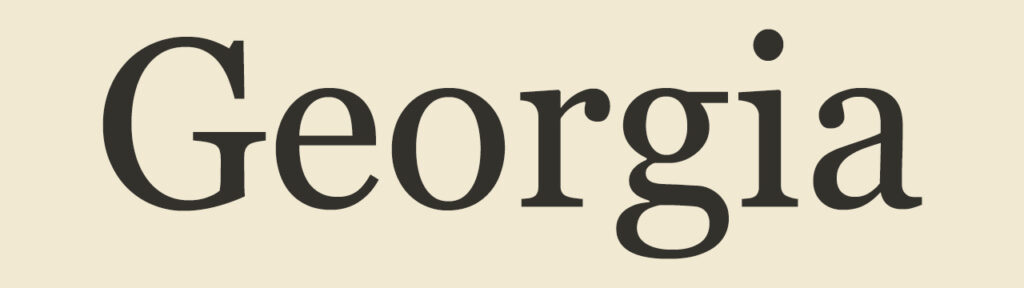
Serif fonts have small lines or strokes at the ends of each letter. These fonts have a long history and are often seen in print. That makes them feel classic, established, and reliable.
Use case: Corporate presentations, legal updates, financial overviews, educational material.
Examples: Times New Roman, Georgia, Garamond, Baskerville.
Serif fonts create a sense of professionalism. They’re serious. So when you want viewers to trust the content or brand, serif fonts are a solid bet.
Sans-serif fonts: clean and contemporary
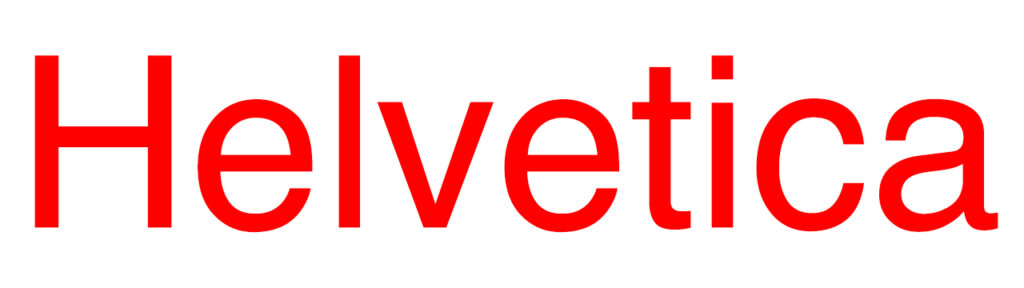
Sans-serif fonts remove the extra lines. They are modern, streamlined, and easy to read on screens.
Use case: Tech demos, explainer videos, internal comms, minimalist branding.
Examples: Helvetica, Arial, Futura, Roboto.
Sans-serif fonts are incredibly versatile. They’re perfect when clarity matters most. If your video walks through product features or presents hard data, these fonts help your message land with impact.
Script fonts: elegant and expressive
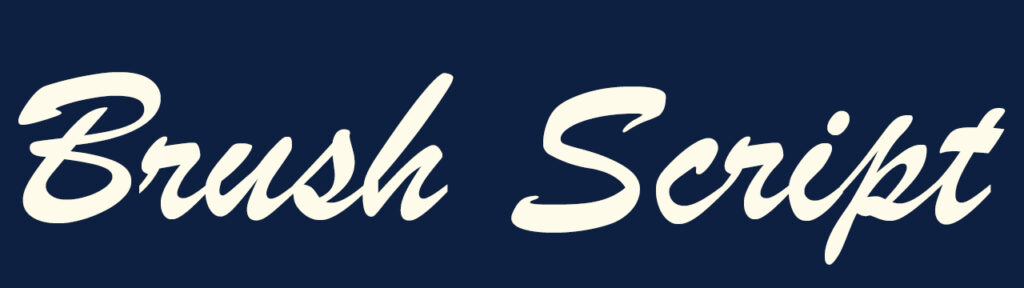
Script fonts mimic cursive handwriting. Some are formal. Others are playful.
Use case: Title cards, lifestyle content, luxury branding, emotional storytelling.
Examples: Pacifico, Brush Script, Great Vibes, Allura.
These fonts aren’t great for body text or captions. But in moderation, they add charm or sophistication. They’re perfect when you want something to feel personal.
Display fonts: bold and attention-grabbing
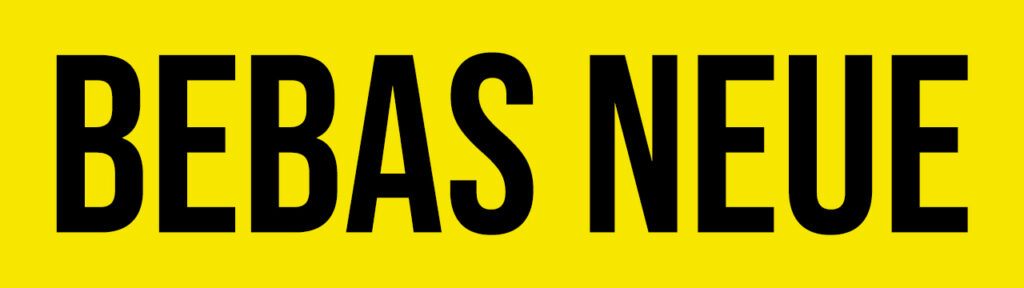
Display or decorative fonts are highly stylized. They’re made to stand out. Because of that, they should be used with caution.
Use case: Intros, transitions, bold branding moments.
Examples: Impact, Lobster, Bebas Neue, Playfair Display.
Display fonts are not for every project. But if you want to surprise or energize your audience, they can do a lot with just a few letters.
Monospaced fonts: technical and neutral
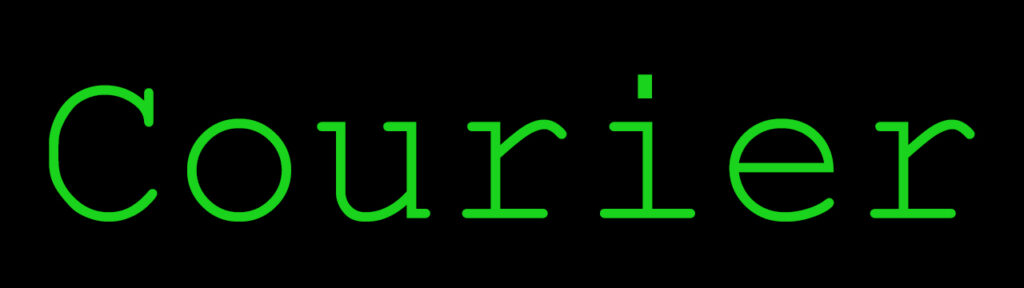
Each letter in a monospaced font takes up the same amount of horizontal space. This gives the font a mechanical, structured feel.
Use case: Coding tutorials, software intros, tech branding.
Examples: Courier, Consolas, Inconsolata.
Monospaced fonts can signal clarity and objectivity. When used carefully, they emphasize precision.
Additional factors in font psychology
Font choice is just the start. Other visual elements affect how your type feels and functions.
Weight and thickness
Bolder fonts feel strong and urgent. Light fonts come across as delicate, refined, or quiet. You can use weight to create contrast or emphasis without switching font families.
Case
All caps feels assertive or even aggressive. Title case (capitalizing the first letter of each word) often feels balanced and clean. Lowercase feels casual and informal.
Spacing
Tight letter spacing can feel cramped or intense. Wide spacing suggests luxury, airiness, or space to breathe. This applies to both character spacing (tracking) and line spacing (leading).
Color
The emotional tone of your font changes with color. A bold sans-serif in black feels serious. The same font in orange might feel energetic. Match color with brand personality and the context of your scene.
Size and scale
Larger fonts dominate the screen. They demand attention. Smaller fonts feel more subtle. Scaling your fonts creates hierarchy and helps guide the viewer’s eye.
How you can apply font psychology to video editing
As a professional editor, you already know the importance of visual coherence. Font psychology fits right into your toolkit. Here’s how you can put it to work.
Match the font to the message
Every project has a tone. It might be confident, serious, fun, or heartfelt. Your font should mirror that tone. Are you launching a new product? Use something clean and modern. Summarizing your team’s quarterly goals? Stick to a font that feels formal and clear.
Reinforce brand identity
Most businesses already have brand guidelines that define primary and secondary fonts. Use them when possible. If you need to break from the brand standard, stay close to the visual spirit of those fonts.
Combine fonts with purpose
Try pairing two fonts: one for headlines and one for body text. For example, a serif header paired with a sans-serif body adds visual contrast while keeping things legible.
Just make sure the fonts don’t clash. Avoid pairing fonts that are too similar or too radically different.
Use Animation Thoughtfully
The way your text moves also affects perception. A script font that fades in slowly can feel elegant. A bold sans-serif that zips across the screen feels dynamic. Keep your motion consistent with the tone of the type.
How to choose a font/fonts for your video
Choosing a font doesn’t have to be overwhelming. Try working through this short checklist:
- Define your tone. What feeling should viewers walk away with?
- Review brand guidelines. Start with what’s already approved.
- Consider your audience. Different fonts resonate with different viewers. A younger audience might appreciate something fresh or playful.
- Test for readability. Will this font hold up on small screens?
- Create a visual hierarchy. Use size, weight, and contrast to guide the viewer’s eye.
- Limit your font palette. One to two fonts per video is usually enough.
When in doubt, keep it simple. A clear message delivered in a well-chosen font will always outperform something overly complicated.
Ensuring readability and accessibility
Great design should be inclusive. Your fonts should work for as many viewers as possible.
Prioritize Legibility
Choose fonts with distinct, easy-to-recognize letterforms. Viewers should be able to absorb information at a glance, especially on fast-moving or information-dense scenes. Avoid fonts that are overly condensed or too ornate, since they tend to blur at smaller sizes or low resolutions. High x-heights and open counters improve readability across all devices.
Use High Contrast
Good contrast helps your text stand out and keeps it readable in any setting. Place light fonts on dark backgrounds or dark fonts on light backgrounds for maximum clarity. Avoid color combinations that can be jarring or difficult to distinguish, especially for viewers with visual impairments. Always test your font colors under different lighting conditions and on various screens.
Optimize for Screen Sizes
Videos are viewed on everything from phones to projectors. A font that looks crisp and legible on a desktop monitor might become unreadable on a smaller screen. Always test your typography across devices to spot any scaling or spacing issues. Design with mobile-first in mind when targeting wider audiences.
Add Captions Thoughtfully
Captions are a key accessibility tool, so their readability matters. Use a clean, sans-serif font that stays legible at smaller sizes and doesn’t compete with the visuals. Keep the text large enough to be comfortably read but small enough to avoid obstructing important elements in the frame. Stick to a consistent style and placement so viewers always know where to look.
Stay Consistent
Consistency builds trust and helps the viewer follow your message without distractions. Avoid switching fonts midway through a video unless you have a clear narrative reason. Use transitions, size, and weight to shift tone or emphasis without disrupting the visual flow. When your type remains steady, the viewer stays focused on your story.
How Visla helps you with fonts
Visla makes it easy to stay picky with your fonts by letting you upload any font directly to your brand kit. That means you’re not stuck using a limited list of defaults, and you can stay fully on-brand in every video. Whether you’re working with a custom typeface or just have a few go-to favorites, you can access them instantly across all your projects. On top of that, Visla is built for streamlined, professional video editing, so you can keep everything, typography, cuts, audio, transitions, and more, within one intuitive platform.
FAQ
Font choice affects how your audience feels about the message you’re delivering. A formal serif font can signal professionalism and credibility, while a fun script font might come across as creative or casual. If your font feels off-brand, it can confuse your viewers or dilute your message.
Yes, but keep it simple. It’s usually best to stick to one or two fonts that complement each other to create visual hierarchy. Too many fonts can feel cluttered and distract from your message.
Sans-serif fonts like Roboto, Helvetica, or Open Sans are ideal. These fonts are clean, legible, and designed for screen readability, even at smaller sizes. Avoid anything too decorative or condensed.
Visla lets you upload any font you want into your brand kit, so you’re not limited to presets. This means your videos can fully align with your brand identity down to the typography. It’s a flexible option for businesses with specific design requirements.
Start by making sure your font has high contrast against the background and is large enough to be read easily on mobile. Then check that the tone of the font matches the tone of the message. These small adjustments go a long way in keeping your audience engaged.